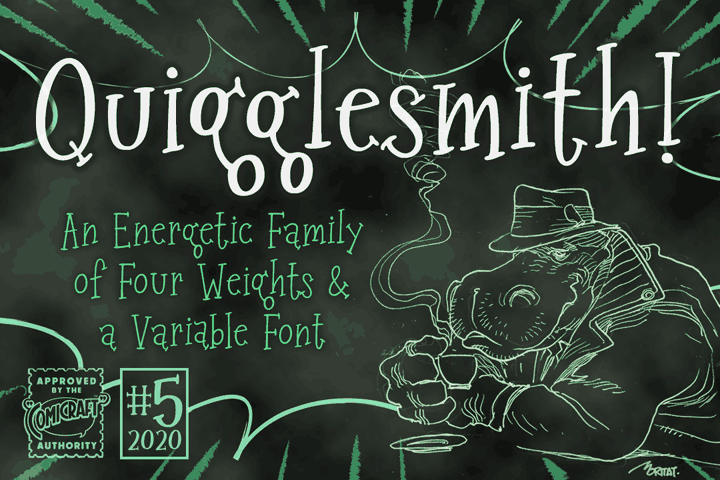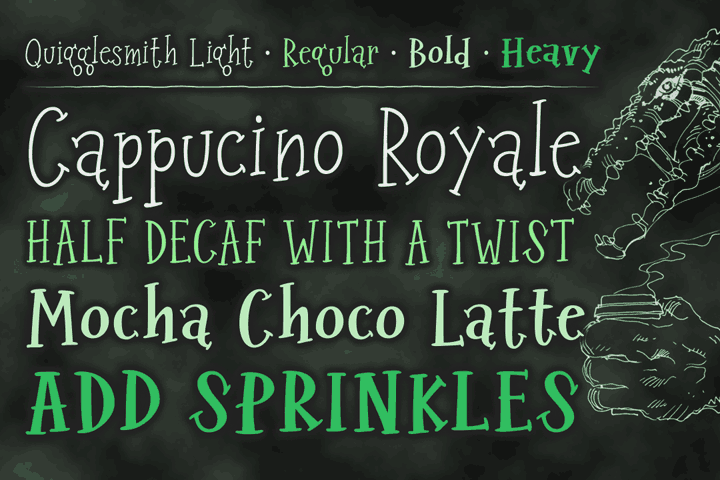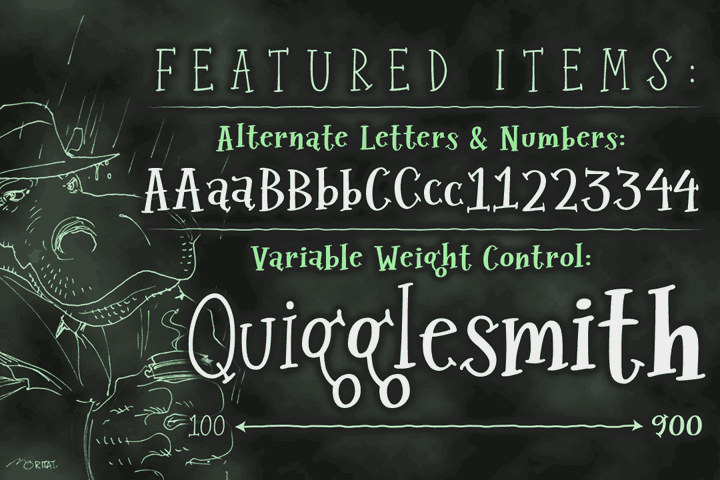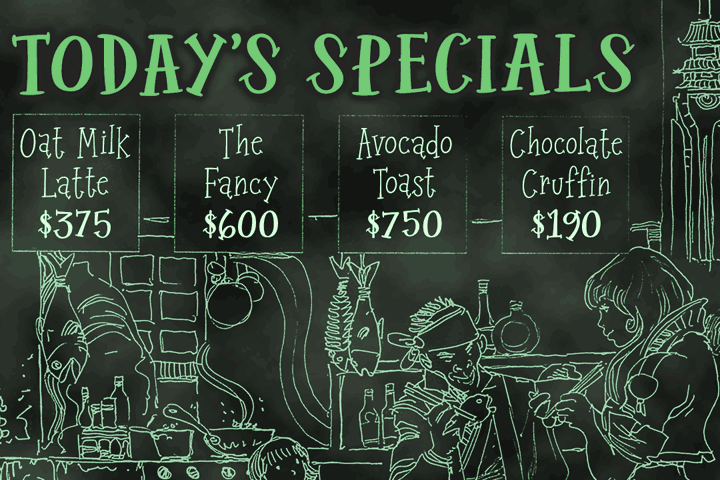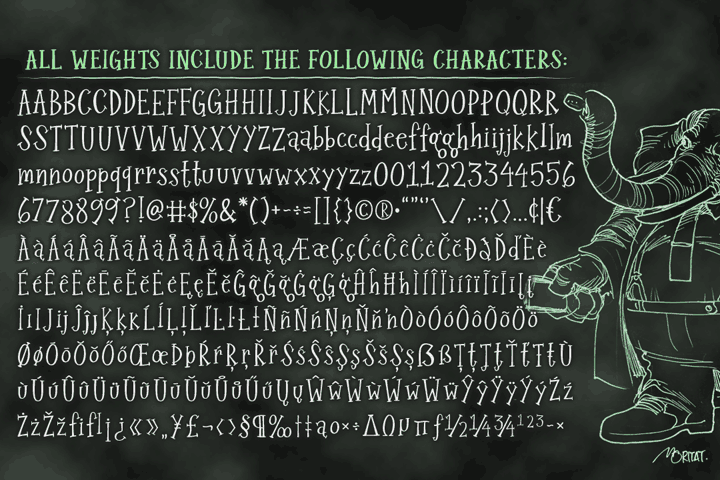
Quigglesmith
It's just downed a Cortado in one gulp, it's shaved the sides of its head and it
Four weights with upper & lowercase alphabets
Languages: Complete Europe (221)
Plus: Automatic alternates and Variable font with Weight axis